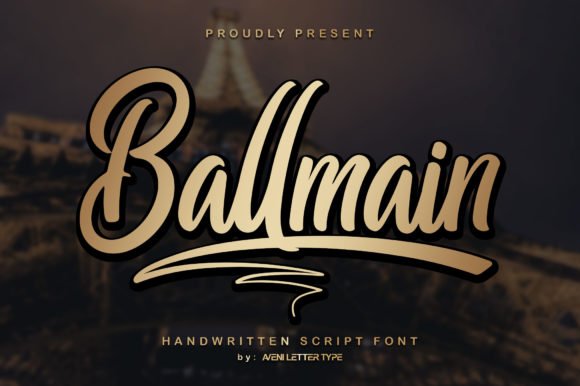
The Perfect Script Font for Your Next Creative Project
As designers, we’ve all been there – staring at a blank page, searching for the perfect font to bring our vision to life. And then, it hits us – the perfect combination of elegance, modernity, and whimsy that makes our design sing. For me, that font is the Ballmain Font, a delightful script font that adds a touch of sophistication to any project.
The Ballmain Font is designed for the modern designer, offering a range of applications from logos and branding to cosmetic tubes and wedding invitations. Its classy, elegant look makes it a valuable asset for designers looking to elevate their work and leave a lasting impression. Whether you’re a seasoned pro or just starting out, the Ballmain Font is an essential addition to your design toolkit.
Ballmain Font Key Features
- Unique Characteristics: Ballmain Font features a unique blend of modern and classic elements, with a distinctive rounded edge and subtle flair, making it a versatile choice for a wide range of design applications.
Ballmain Font Review
At first glance, Ballmain Font appears to be a sophisticated and elegant typeface, perfect for creating a luxurious atmosphere in any design project. ✨ Its refined lines and classic proportions make it an excellent choice for high-end brands and upscale businesses.
One of the standout features of Ballmain Font is its versatility. ✨ It can be used for both print and digital projects, and its wide range of weights and styles allows designers to create a cohesive visual identity. Additionally, the font is highly legible, making it an excellent choice for body text.
However, there are some limitations to consider. ⚠️ For one, Ballmain Font may be too ornate for some designs. Its intricate details and flourishes can make it difficult to read at small font sizes or in low-resolution contexts. Additionally, the font may not be suitable for modern or edgy designs, as it has a more traditional and classic feel.
- ✨ Sophisticated and elegant design
- ✨ Highly versatile and legible
- ✨ Wide range of weights and styles
- ⚠️ May be too ornate for some designs
- ⚠️ Not suitable for modern or edgy designs
Overall, Ballmain Font is a solid choice for designers who want to create a luxurious and sophisticated atmosphere. While it may have some limitations, its elegance and versatility make it a great option for a wide range of projects.
Use Ballmain Font for creative and elegant designs, such as:
– Invitations and event materials
– Branding and marketing materials
– Luxury and high-end product packaging
For best results, use Ballmain Font in combination with high-quality images and design elements to create a sophisticated and stylish look.
Alternatives to Ballmain Font
Pacifico is a beautiful, elegant script font that is perfect for creating a luxurious and sophisticated look. It’s ideal for use in branding, invitations, and other high-end design projects. Pacifico is similar to Ballmain Font in its flowing and cursive nature, but it has a more refined and polished appearance.
Comparison: Pacifico has a more sophisticated and elegant feel compared to Ballmain Font, which can make it a better choice for high-end designs. However, Ballmain Font has a more playful and creative vibe that can be appealing for more casual designs.